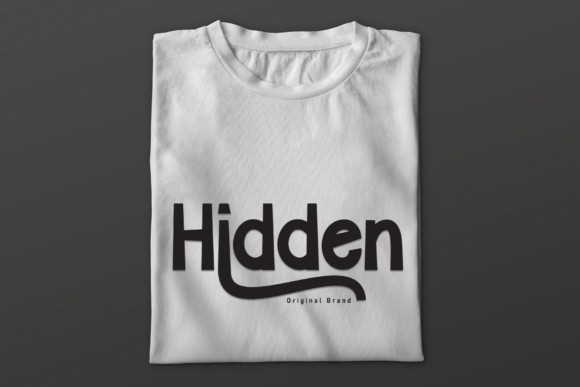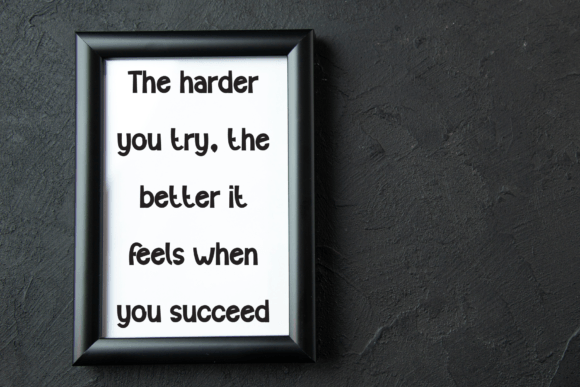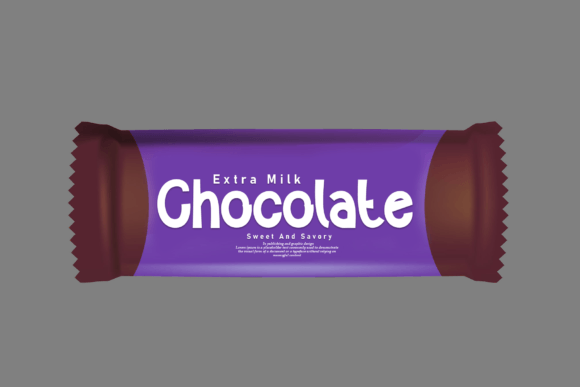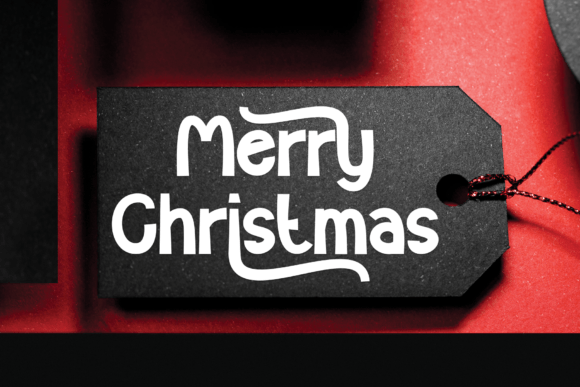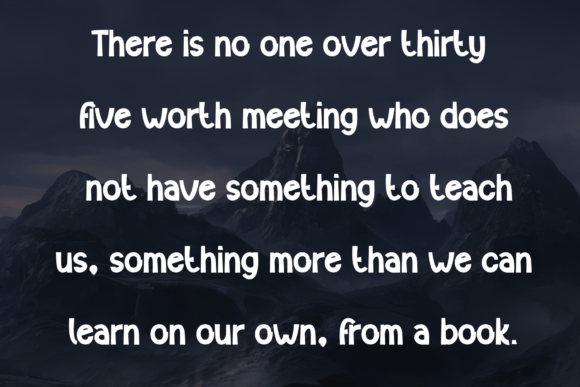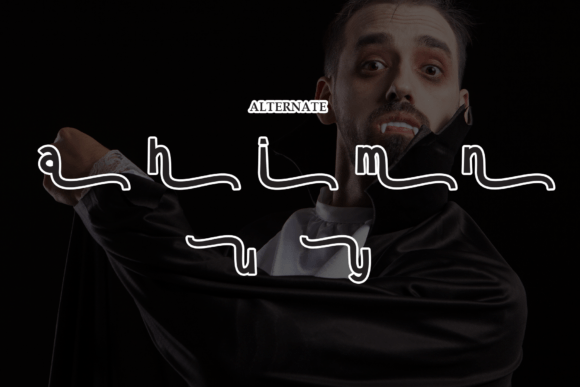
Dracula Font: Add a Touch of Whimsy to Your Designs
Are you looking for a font that can add a dash of fun and playfulness to your designs? Look no further than the Dracula font! This sweet and friendly handwritten display font is perfect for creating eye-catching wedding invitations, cards, and other designs that require a touch of whimsy.
What is Dracula Font?
Dracula font is a beautiful, handwritten display font that is designed to bring a smile to your face. With its cute and fun design, this font is ideal for anyone who wants to add a personal touch to their designs. Whether you’re a designer, crafter, or DIY enthusiast, Dracula font is sure to become a favorite in your collection.
Characteristics of Dracula Font
So, what makes Dracula font so special? Here are just a few of its key characteristics:
- Handwritten design: Dracula font has a beautiful, handwritten design that gives it a personal and friendly feel.
- Cute and fun: This font is designed to be playful and fun, making it perfect for designs that require a lighthearted touch.
- Display font: Dracula font is a display font, which means it’s designed to be used at larger sizes, making it perfect for headings and titles.
- Sweet and friendly: The overall feel of Dracula font is sweet and friendly, making it perfect for designs that require a touch of warmth and personality.
Uses for Dracula Font
So, what can you use Dracula font for? The possibilities are endless! Here are just a few ideas to get you started:
- Wedding invitations: Dracula font is perfect for creating beautiful, one-of-a-kind wedding invitations that will set the tone for your special day.
- Cards and stationery: Whether you’re creating birthday cards, thank-you cards, or stationery, Dracula font is sure to add a touch of fun and whimsy to your designs.
- DIY projects: If you’re a crafter or DIY enthusiast, Dracula font is a great choice for your projects, from scrapbooking to home decor.
- Digital designs: Dracula font can also be used for digital designs, such as social media graphics, blog posts, and more.
Why Choose Dracula Font?
So, why should you choose Dracula font for your designs? Here are just a few reasons:
- Unique and eye-catching: Dracula font is a unique and eye-catching font that will help your designs stand out from the crowd.
- Easy to read: Despite its playful design, Dracula font is easy to read, making it perfect for designs that require a clear and concise message.
- Versatile: Dracula font can be used for a wide range of designs, from wedding invitations to digital designs.
- Fun and playful: This font is designed to be fun and playful, making it perfect for designs that require a lighthearted touch.
Tips for Using Dracula Font
Here are a few tips for using Dracula font in your designs:
- Use it at larger sizes: Dracula font is designed to be used at larger sizes, so don’t be afraid to experiment with different sizes and styles.
- Pair it with other fonts: Dracula font pairs well with other fonts, so feel free to experiment with different combinations to find the perfect look for your design.
- Add embellishments: Consider adding embellishments, such as glitter or other graphics, to give your designs an extra touch of whimsy.
In conclusion, Dracula font is a sweet and friendly handwritten display font that is perfect for adding a touch of fun and whimsy to your designs. With its cute and playful design, this font is ideal for wedding invitations, cards, and other designs that require a lighthearted touch. Whether you’re a designer, crafter, or DIY enthusiast, Dracula font is sure to become a favorite in your collection.